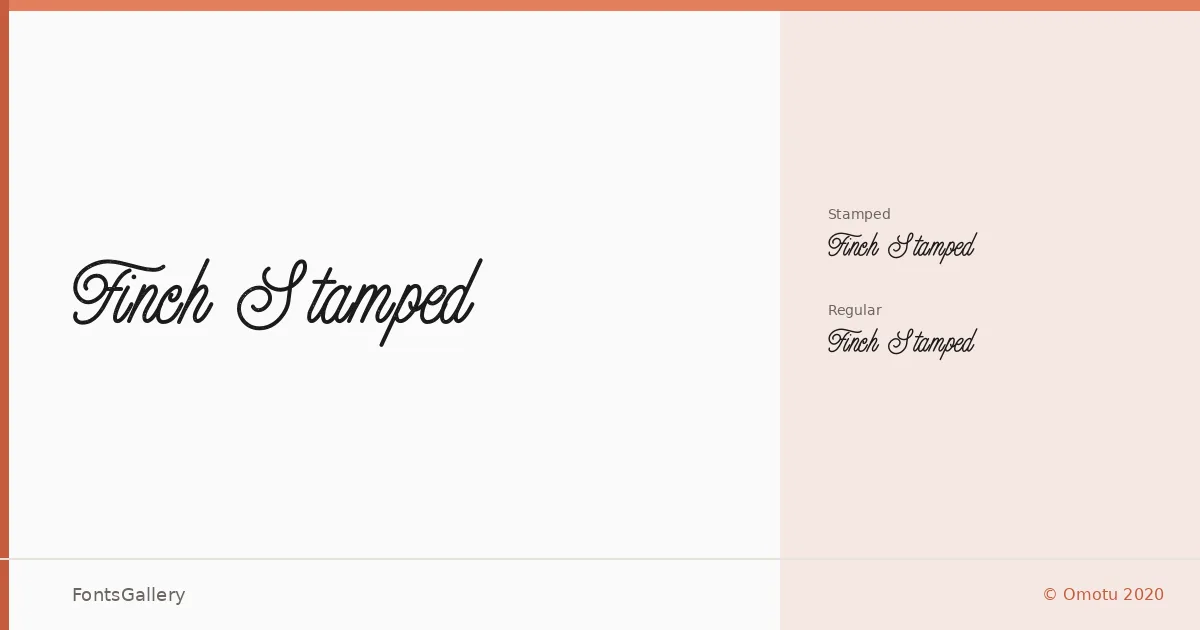
About Finch Stamped Font
There is something in the letterforms here that reads like an old ink stamp pressed just slightly unevenly into thick paper — deliberate, characterful, and warm. Designed by Omotu in 2020 and built in FontCreator 12, this script family comes in two cuts: a clean Regular and a Stamped variant that carries that worn, tactile quality through every curve and terminal.
Both styles sit firmly in script territory, drawing on a classic, romantic sensibility with a vintage edge. The Regular flows with the elegance you expect from a wedding-facing face, while the Stamped version introduces subtle distress that keeps things from feeling overly polished or generic. Together they give you a range within a single family — refined when you need it, textured when the job calls for something with more soul. Coverage is Latin.
The natural home for these cuts is anywhere the mood needs to feel considered and handcrafted: wedding invitations, greeting cards, branding with a heritage lean, and logo work where a signature quality matters. For contrast, the listed pairings — Canela, Helvetica, ABC Arizona, Asap, and Anglecia Pro — each offer a different register, from editorial warmth to clean neutrality, so you can tune the overall composition to the job.